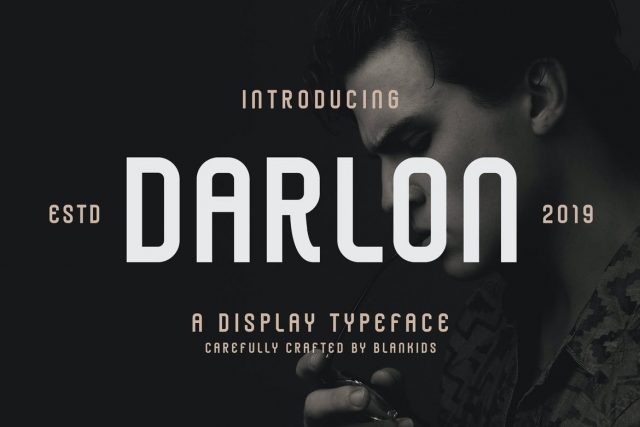
Introducing a new sans serif typeface called Darlon . Darlon good for logotype, poster, badge, book cover, tshirt design, packaging and any more.
MULTILINGUAL ACCENT :
ŽžŠŒšŸÀÁÂÃÄÅÆÇÈÉÊËÌÍÎÏÐÑÒÓÔÕÖØÙÚÛÜÝßàáâãäåæçèéêëìíîïñòóôõöøùúûüýÿ